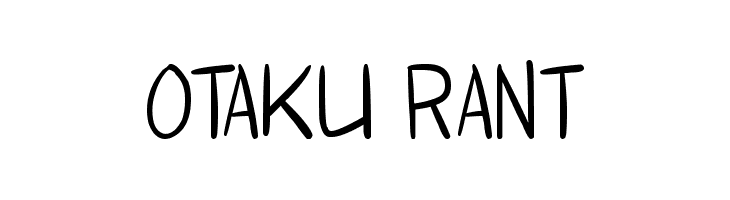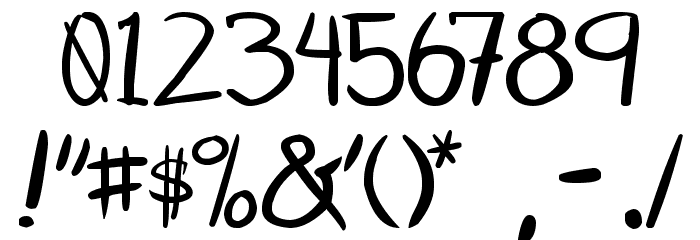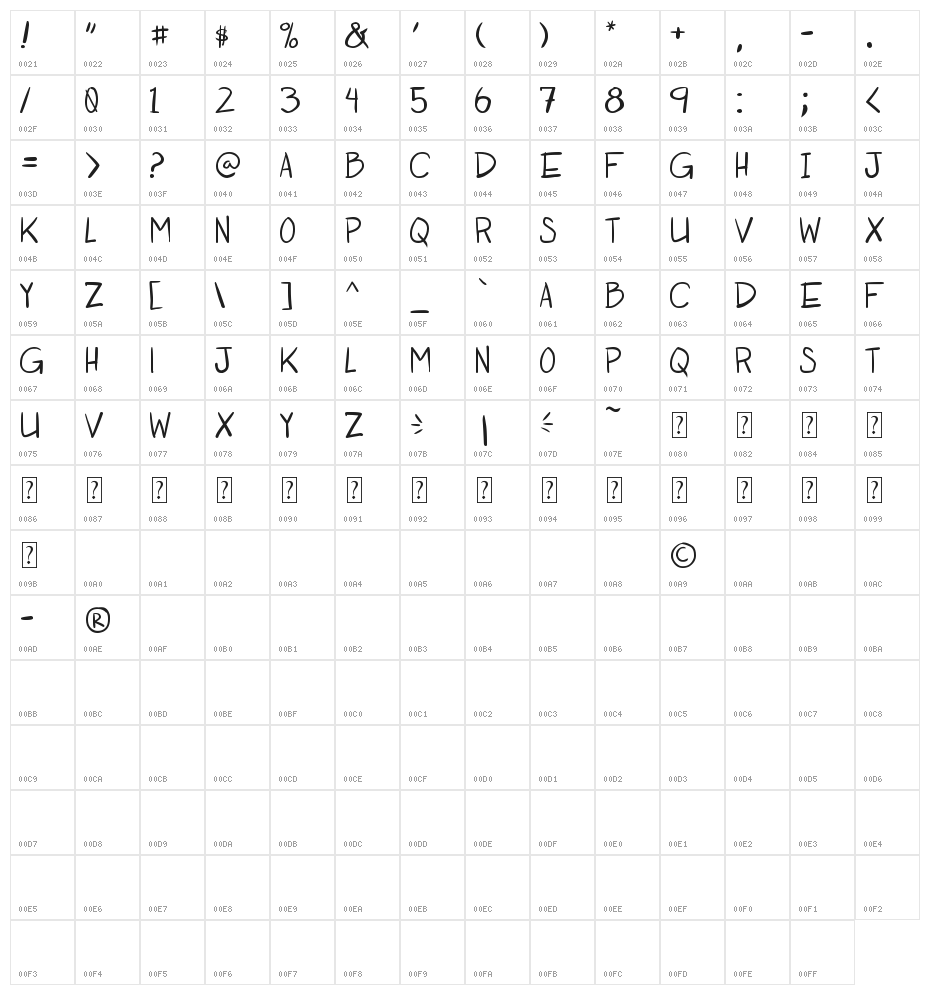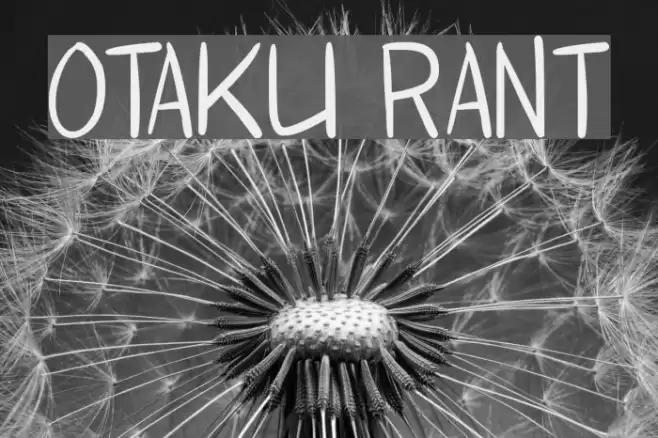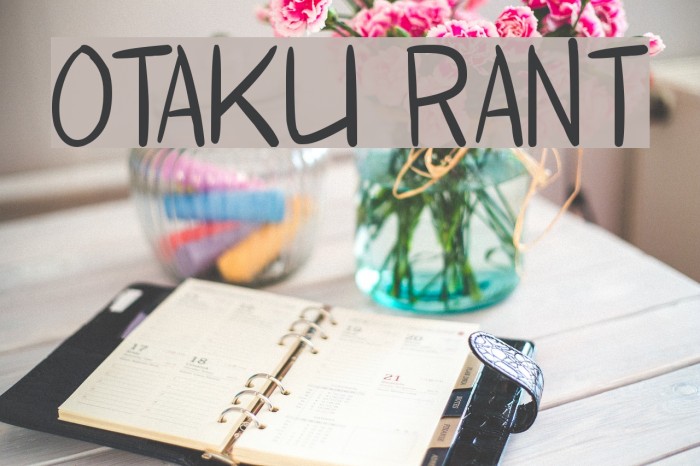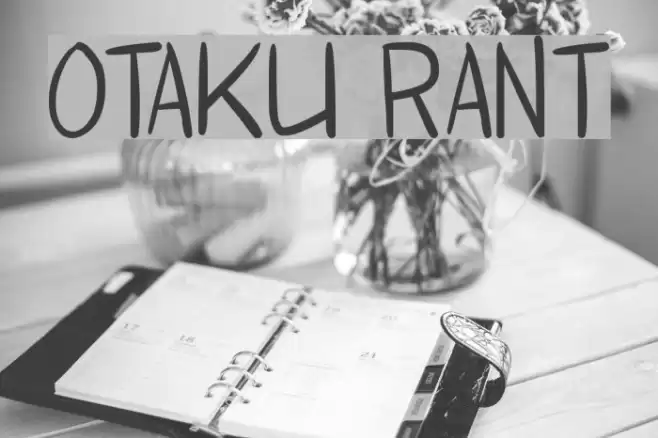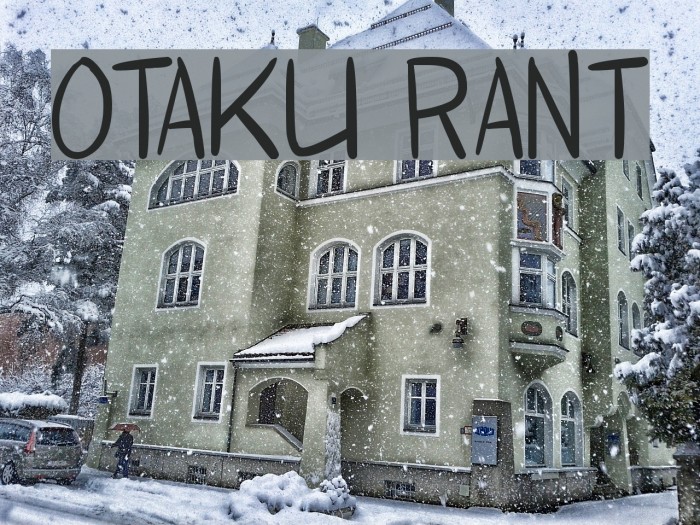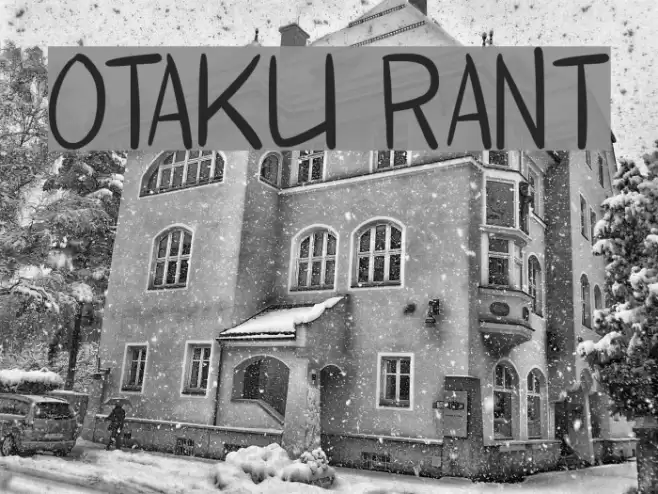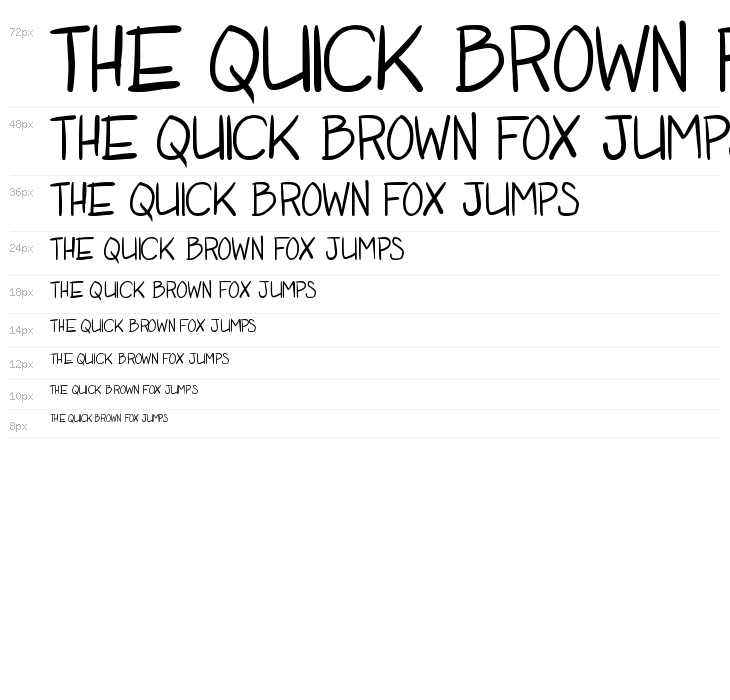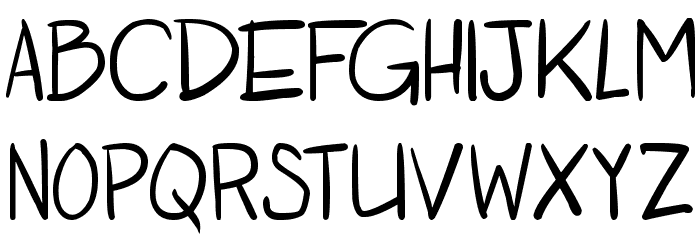
Otaku Rant Font
Otaku Rant Description
This font features a playful and informal handwritten style, characterized by its uneven strokes and casual appearance. The letters are slightly slanted, giving a dynamic and energetic feel. The uppercase and lowercase letters maintain a consistent style, with rounded edges and a slightly irregular baseline that adds to its charm. The numerals and special characters follow the same playful design, making the font versatile for various creative projects. Its unique personality makes it stand out, perfect for designs that require a touch of whimsy and individuality.
| Proposed Projects | Ideal for comic books, children's books, informal invitations, and playful branding. |